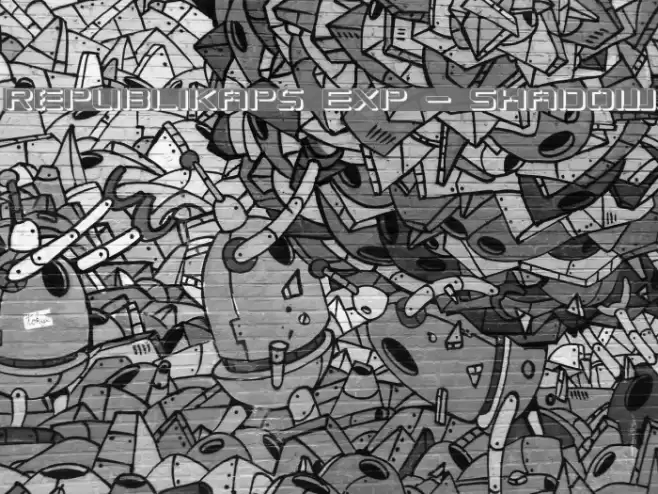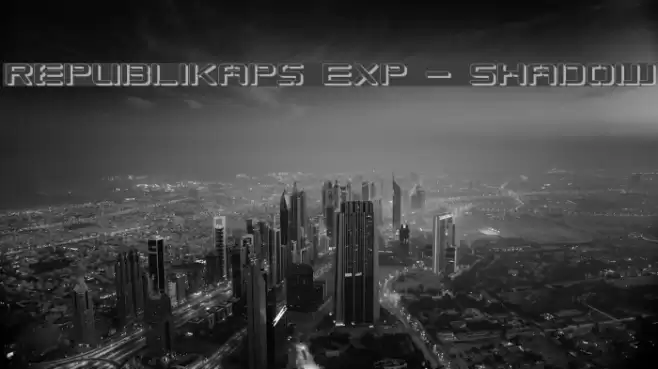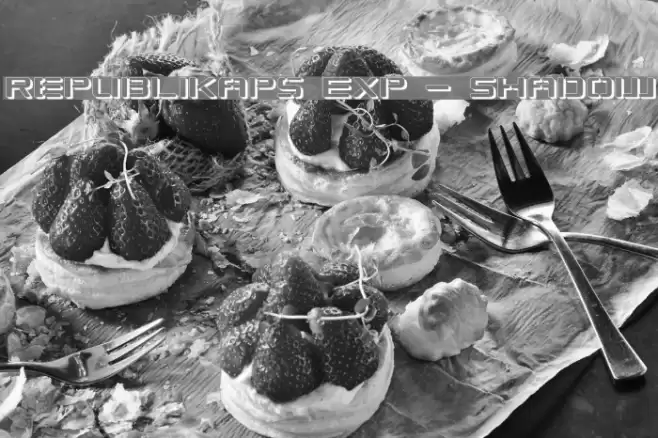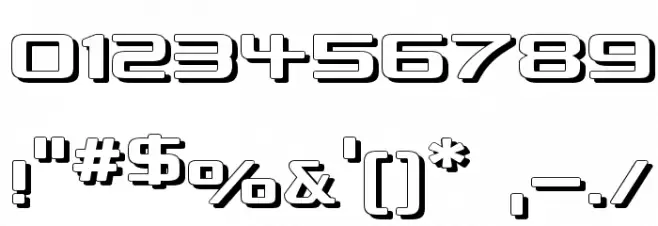
Republikaps Exp - Shadow Font
Republikaps Exp - Shadow Description
This font features a bold, geometric style with a distinct shadow effect that gives it a three-dimensional appearance. The characters are constructed with clean, straight lines and sharp angles, creating a futuristic and modern look. The uppercase and lowercase letters maintain a consistent design, with the shadow adding depth and emphasis. The numerals and special characters follow the same design principles, ensuring uniformity across the typeface. This font's unique shadow effect makes it stand out, ideal for projects that require a strong visual impact.
A bold, geometric font with a three-dimensional shadow effect, perfect for modern designs from Uncategorized fonts.
- Proposed Projects: Ideal for headlines, posters, branding, and any design requiring a futuristic and impactful appearance.